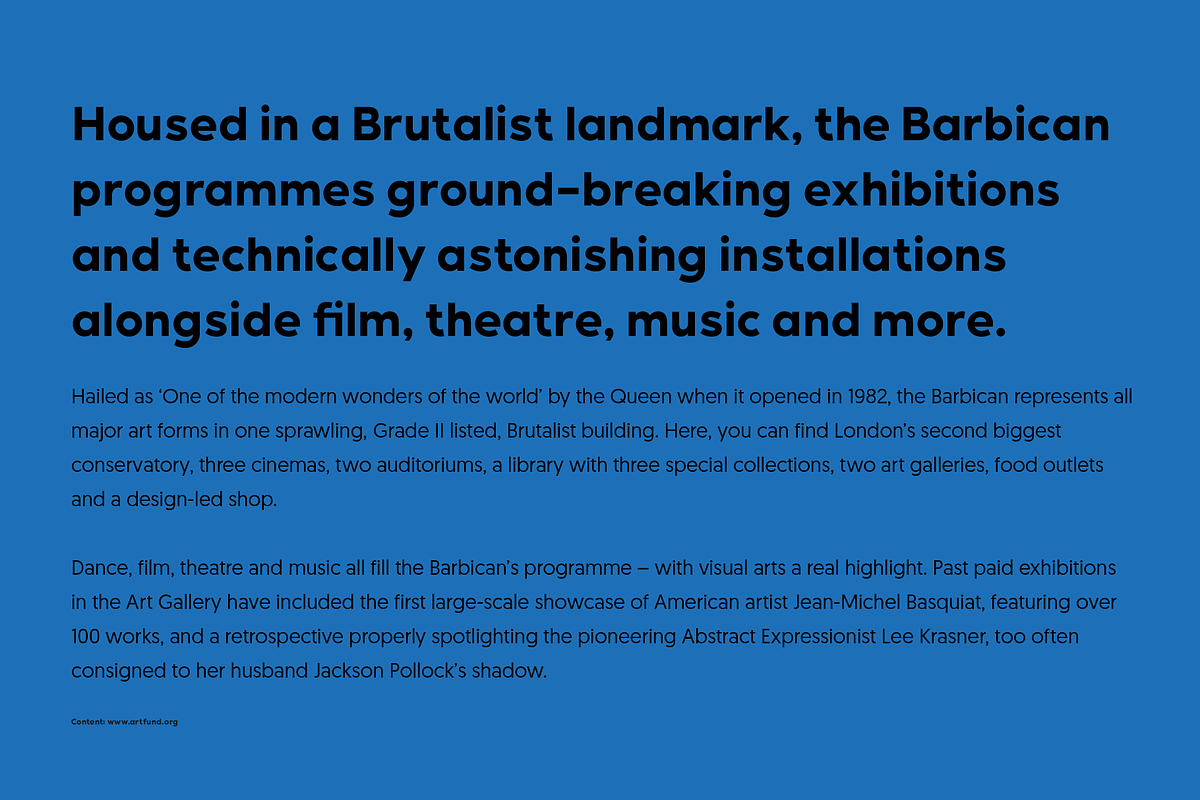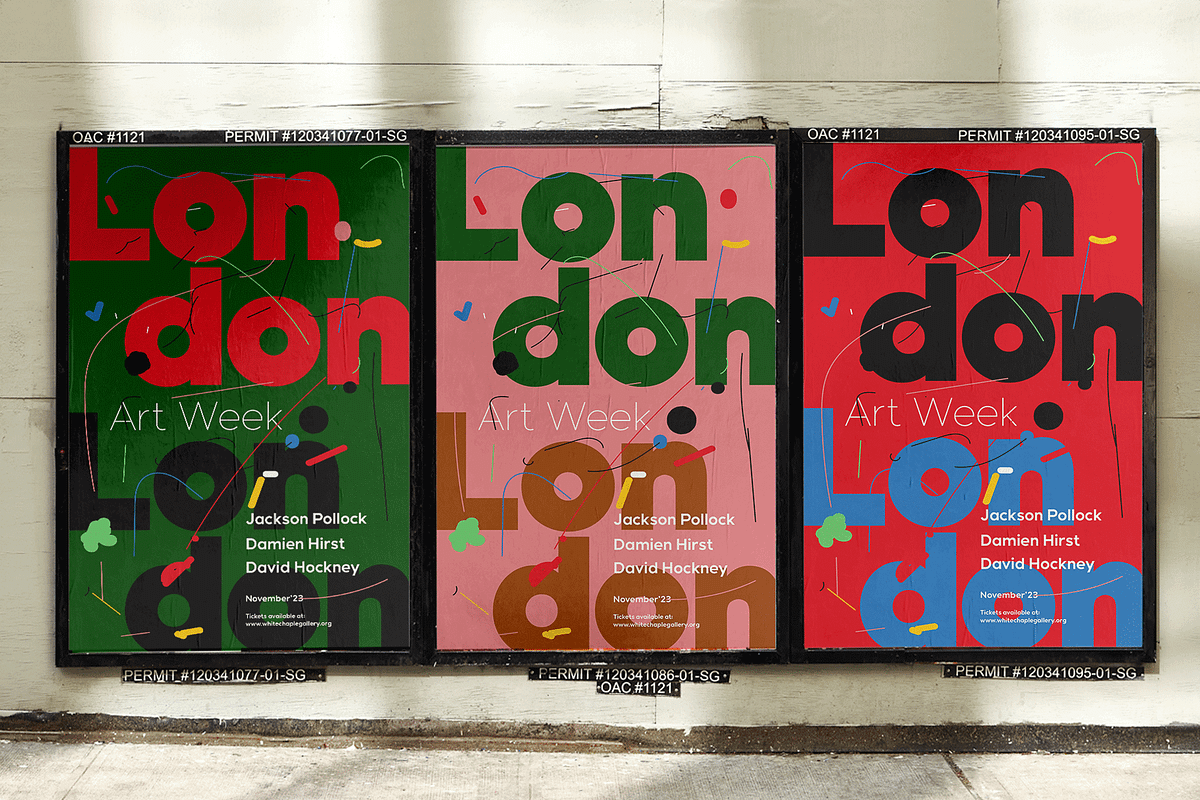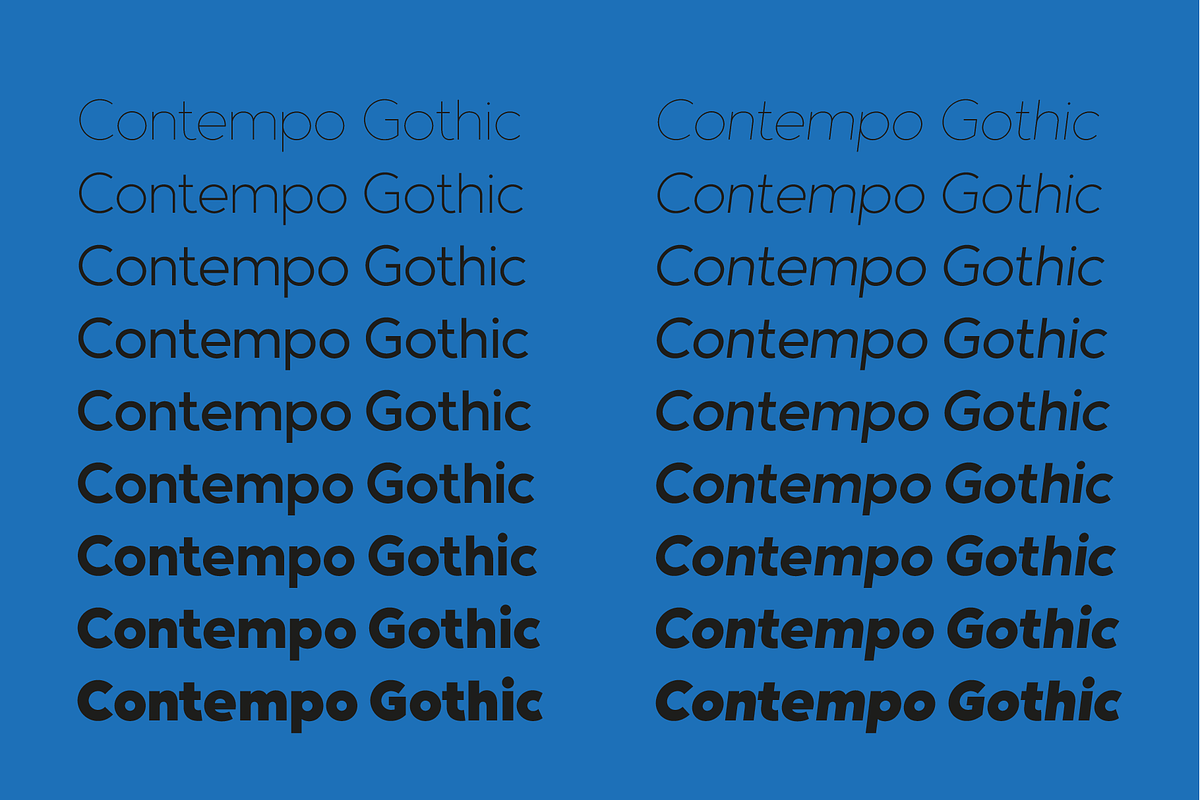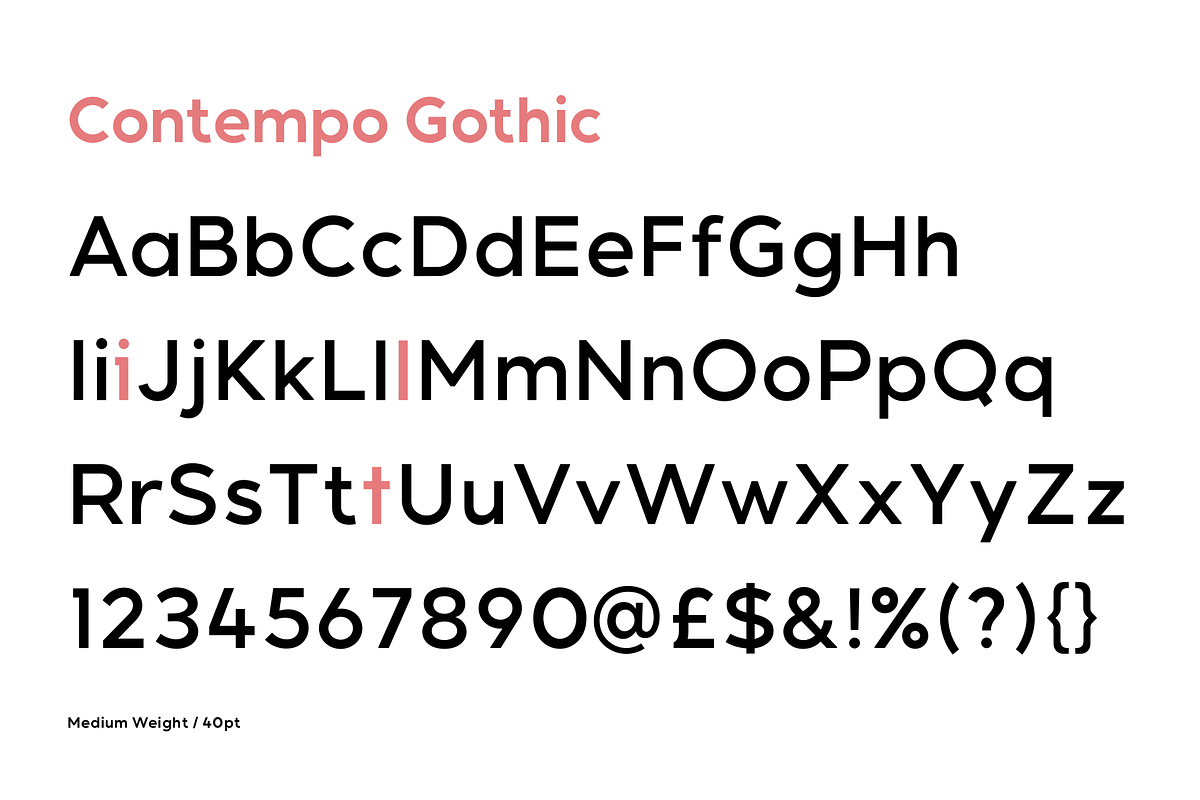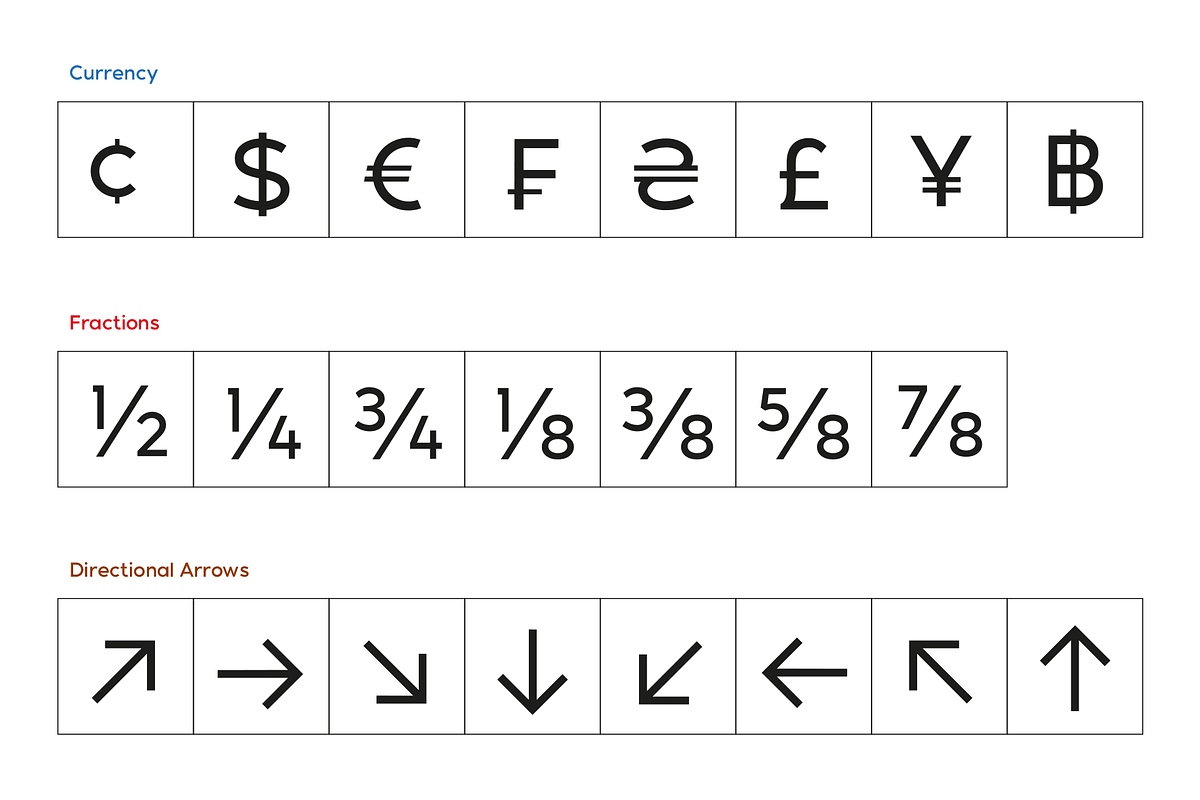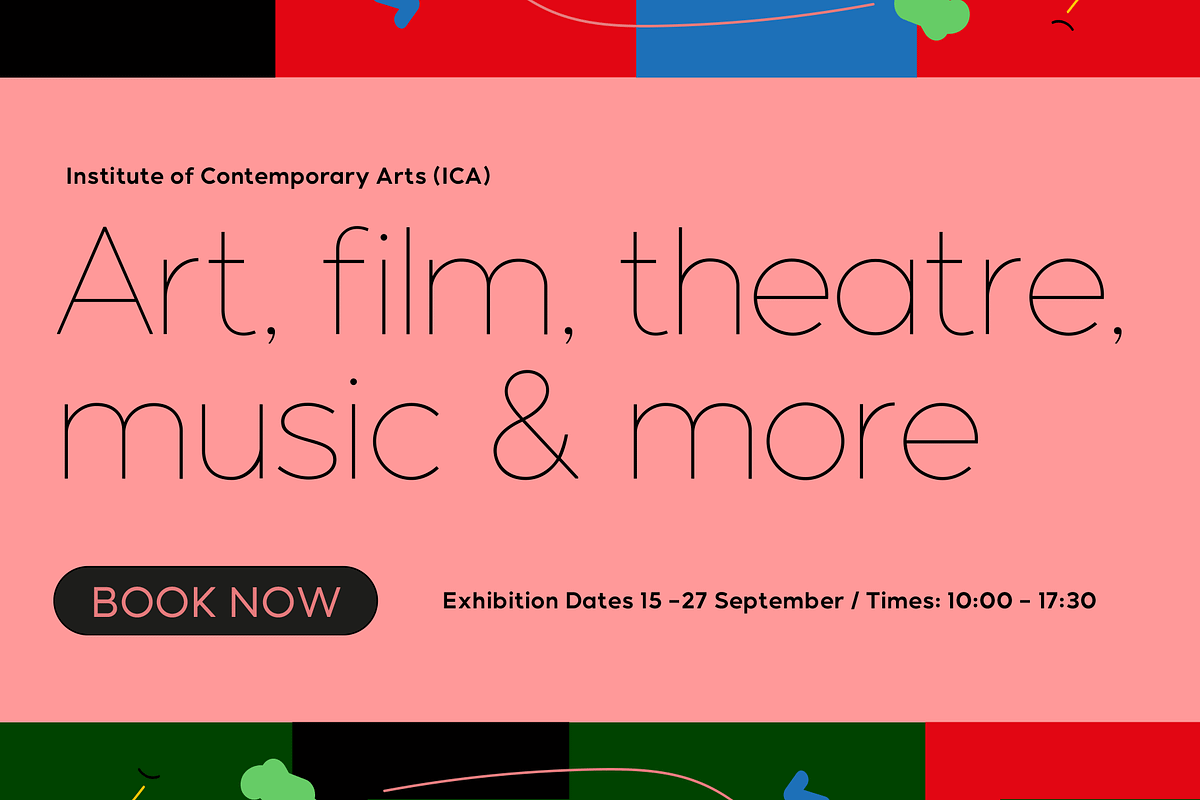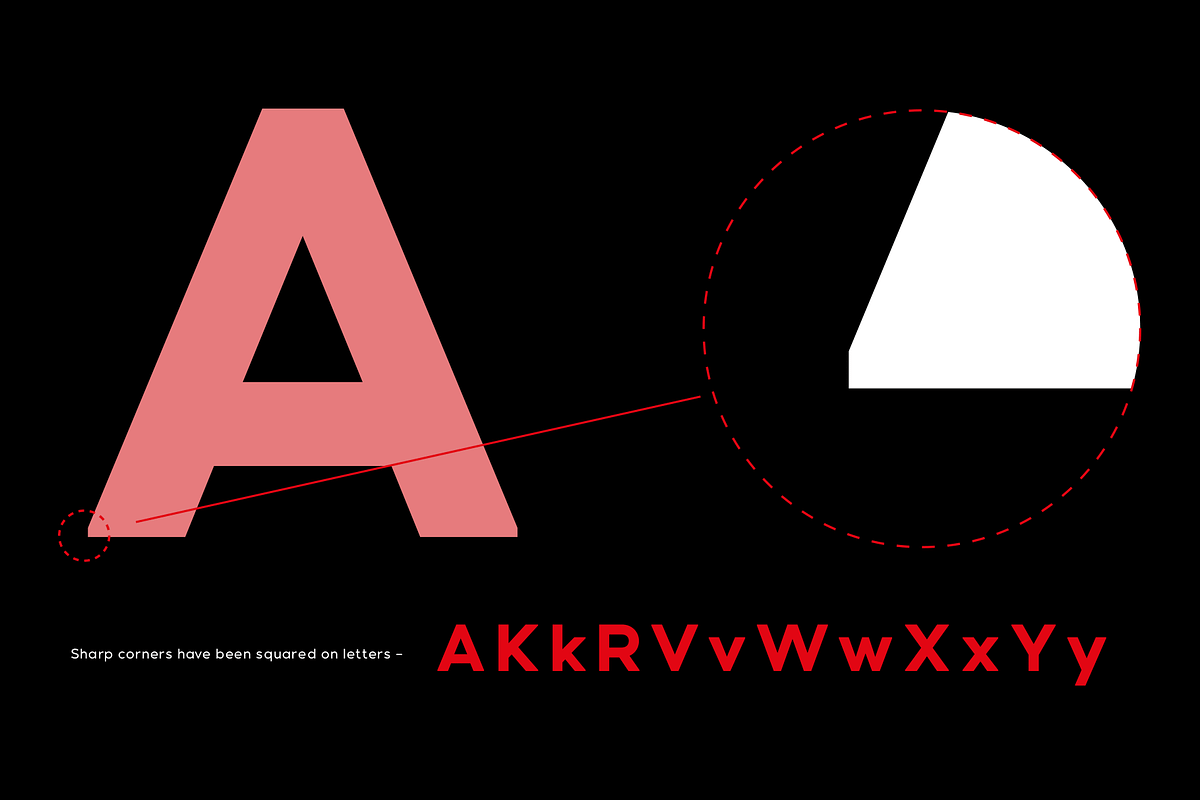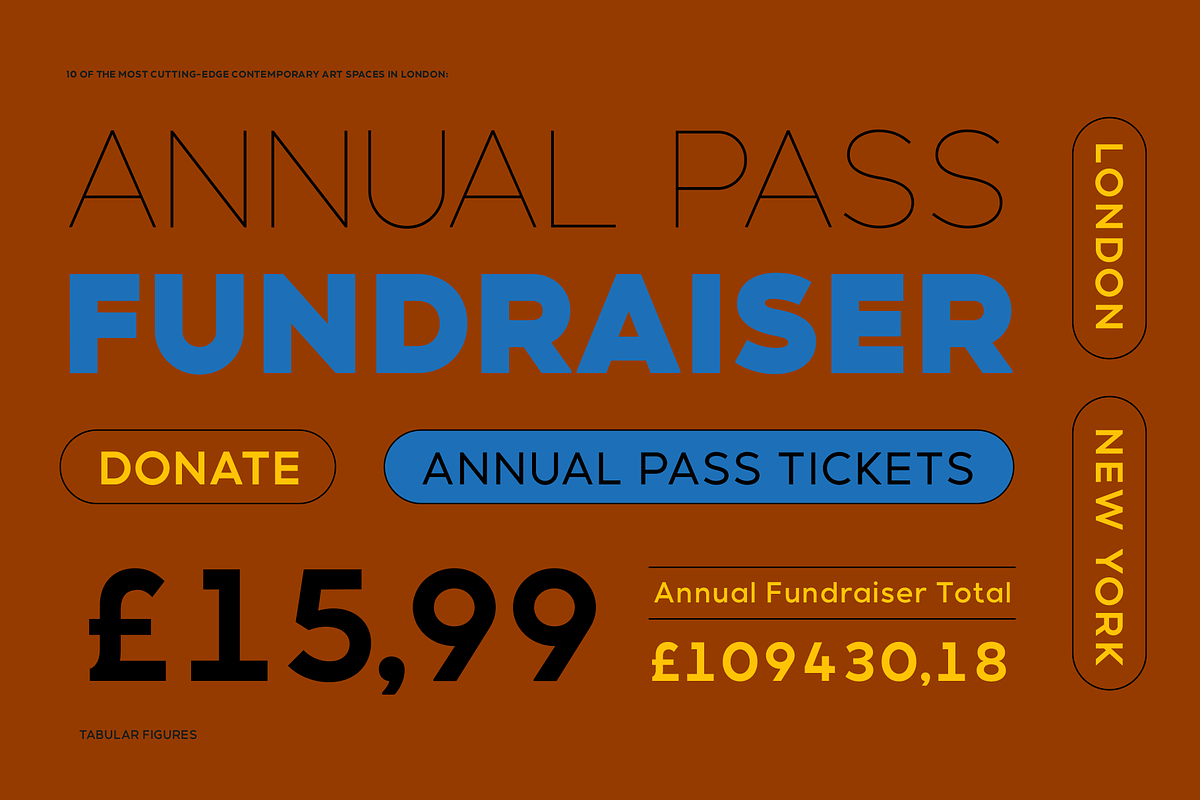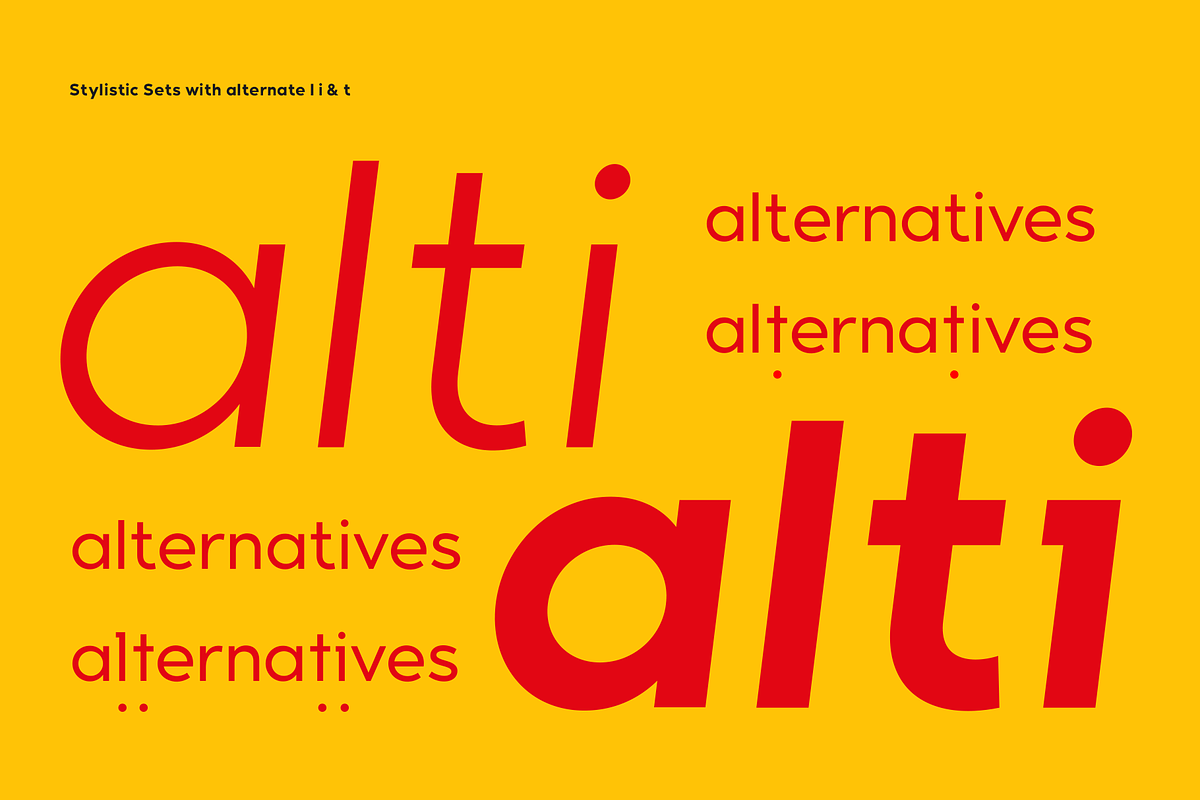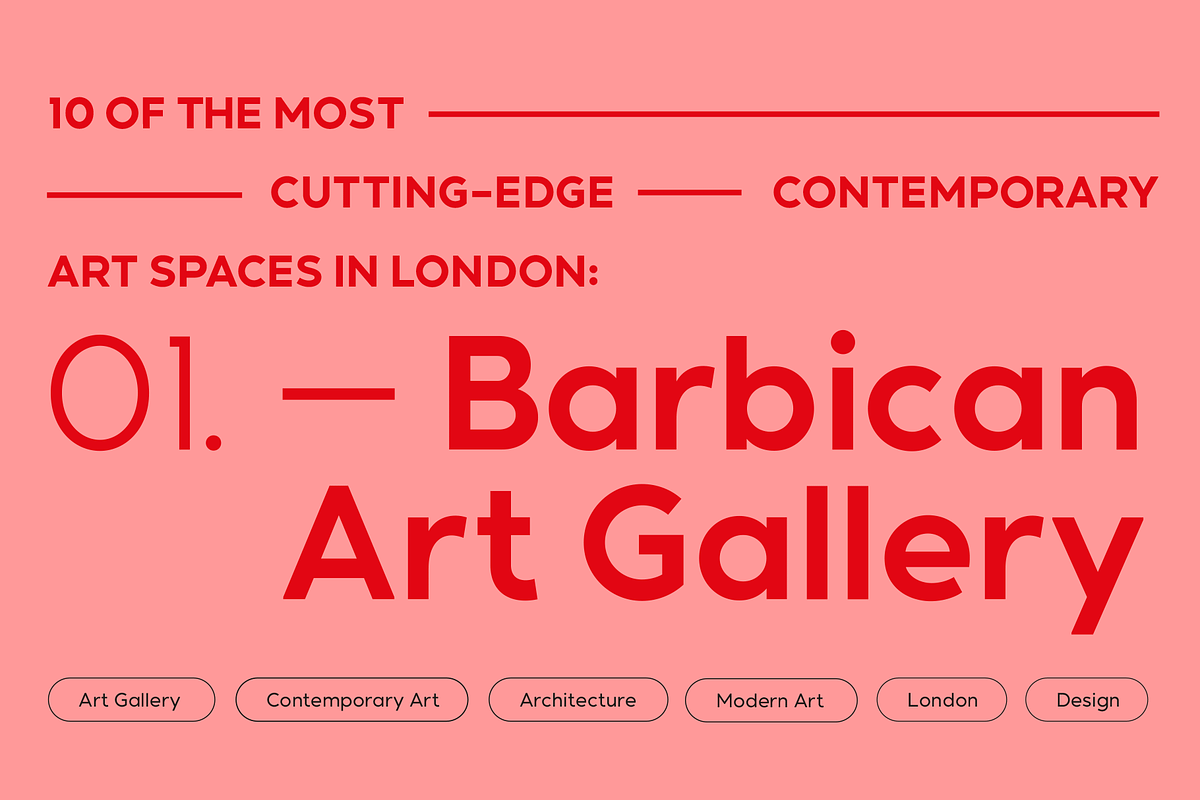
Contempo Gothic - Family
Contempo Gothic is a modern sans serif with a geometric approach. It comes in 18 weights, 9 uprights and its matching italics. Designed with opentype features including stylistic sets and tabular figures. Contempo Gothic includes extensive language support, fractions, arrows, ligatures and more. Perfectly suited for graphic design and any display use at any size. It could easily work for websites, blogs, signage, corporate identities, publishing and editorial design to name a few. Contempo Gothic is super versatile for everyday design use.